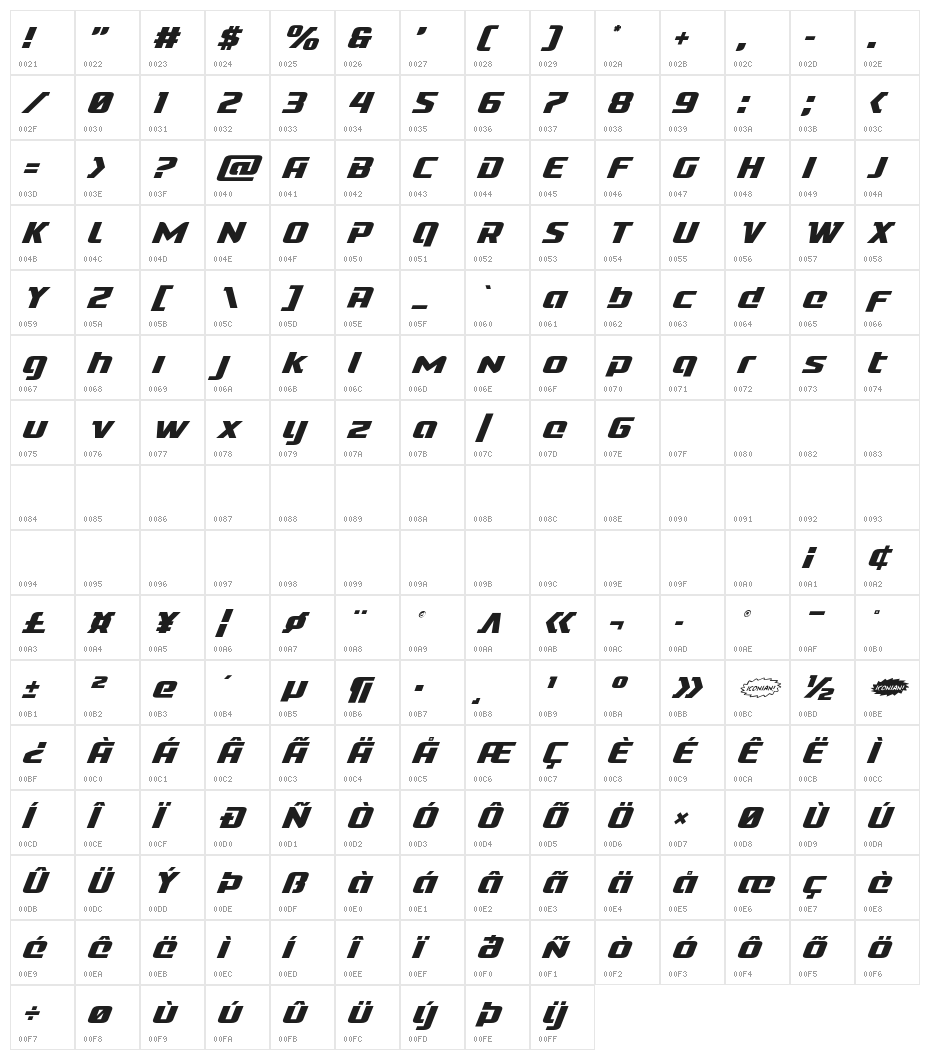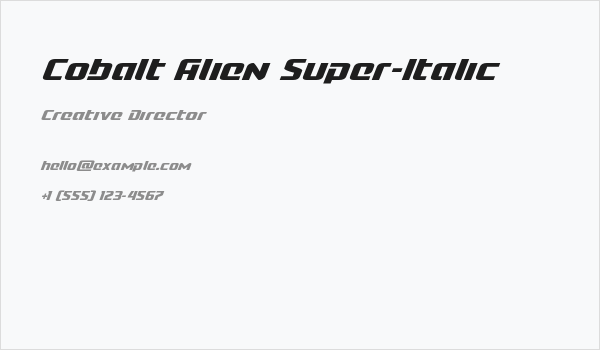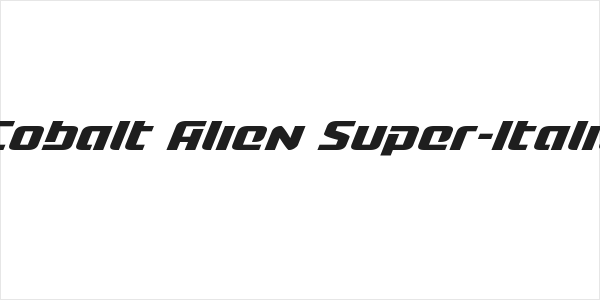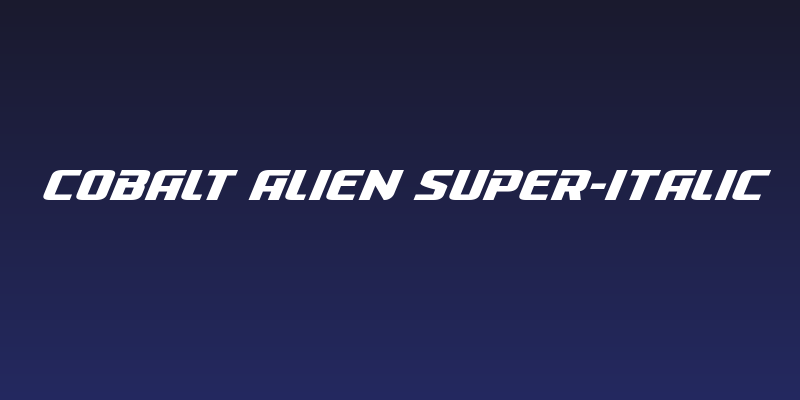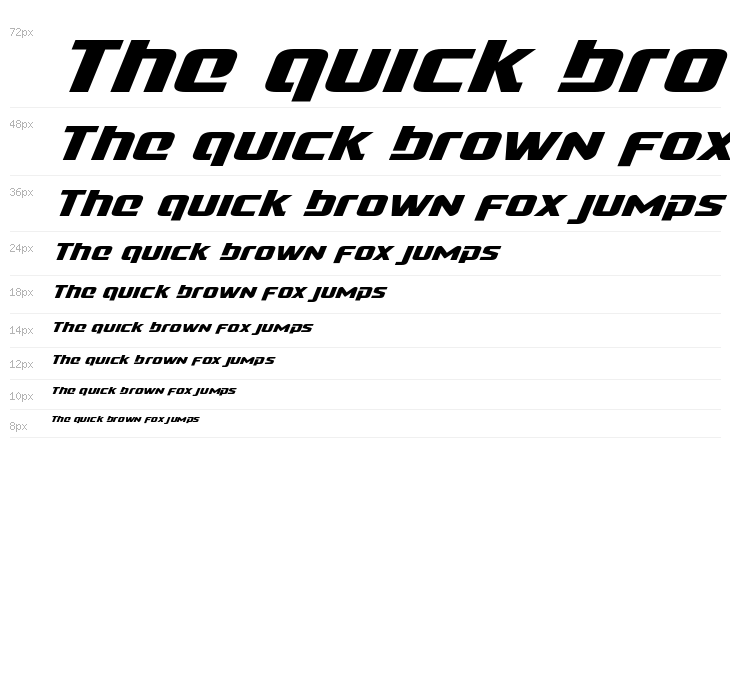
Cobalt Alien Super-Italic Font
Cobalt Alien Super-Italic Description
This font features a futuristic and dynamic design with a strong italic slant, giving it a sense of motion and speed. The characters are bold and angular, with sharp edges and a slightly condensed form. The uppercase letters are particularly striking, with a uniform height that creates a cohesive look. The lowercase letters maintain the same angular style, ensuring consistency throughout. Numbers and special characters are designed to match the bold, italicized aesthetic, making them stand out. This font is ideal for projects that require a modern, high-tech feel.
| Proposed Projects | Ideal for sci-fi themed designs, technology branding, video game titles, and dynamic posters. |